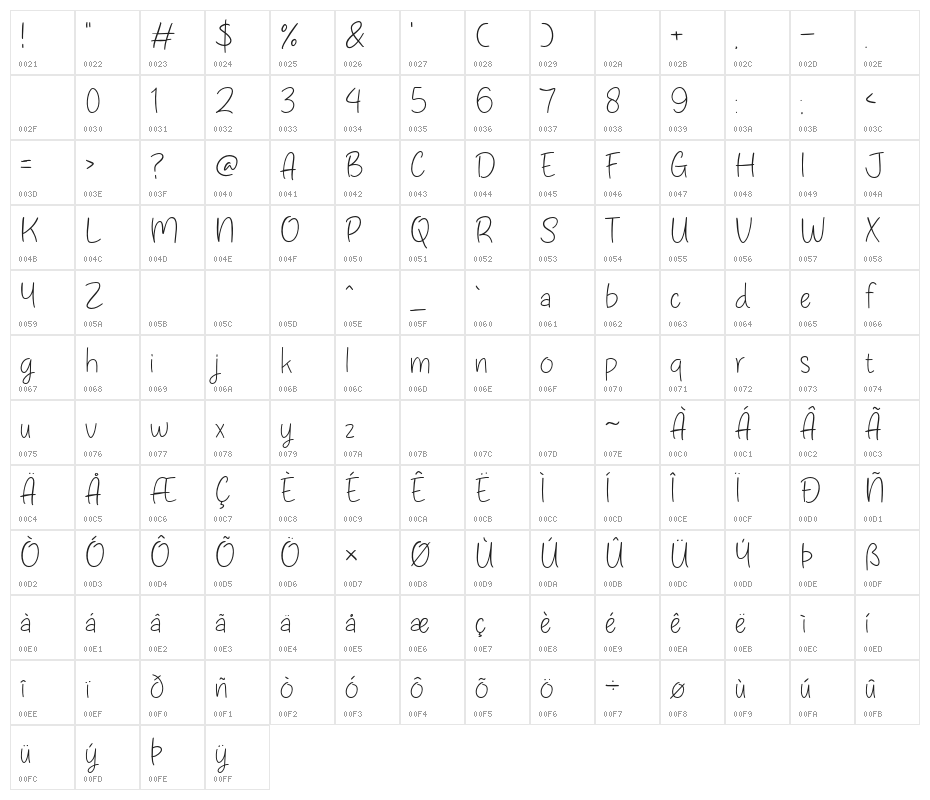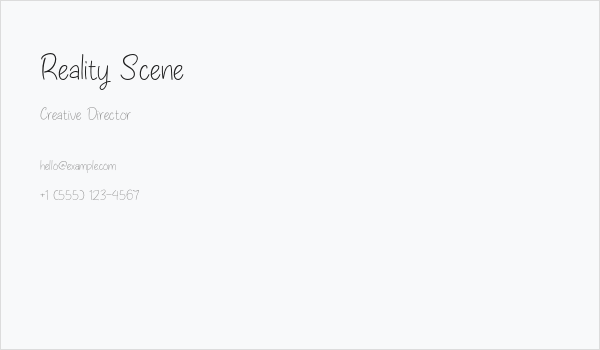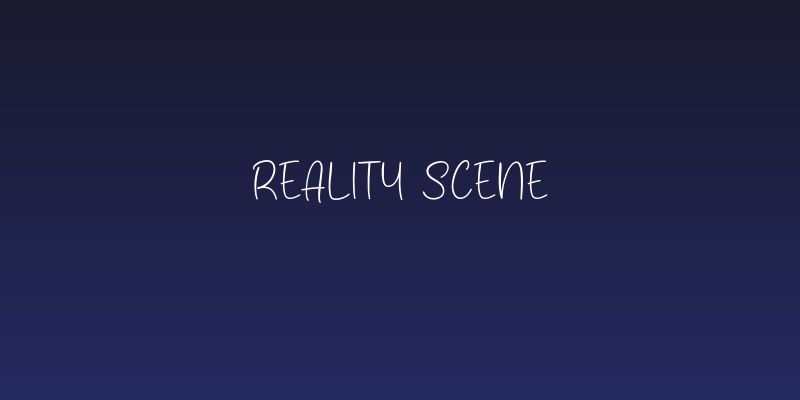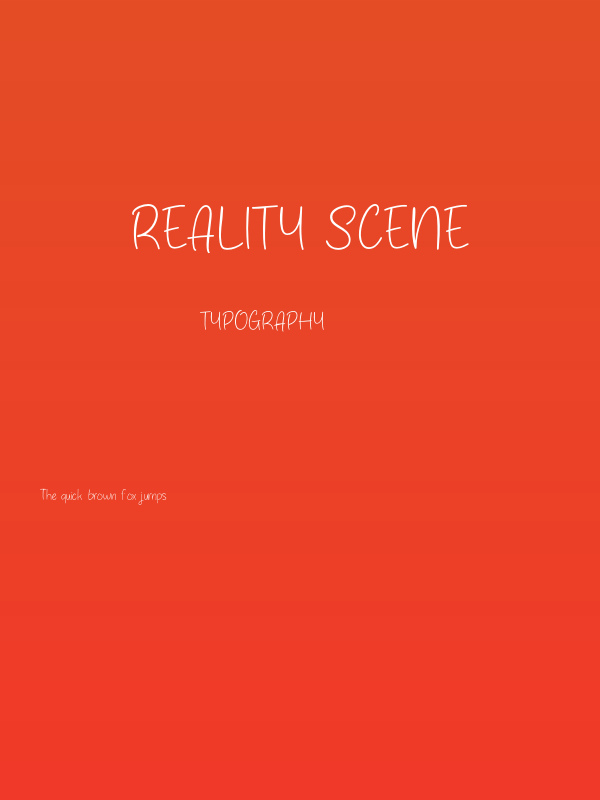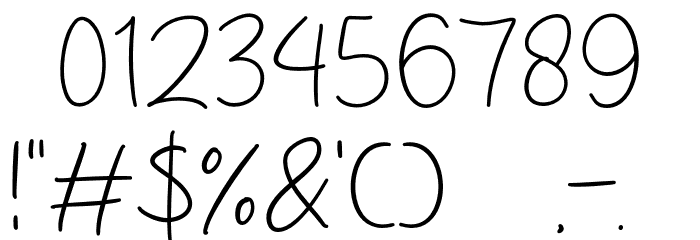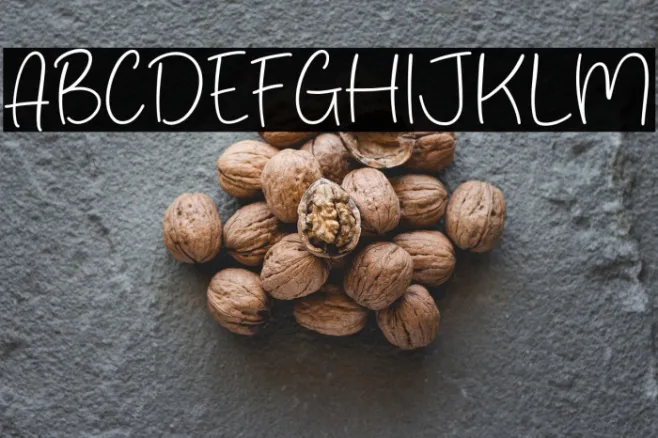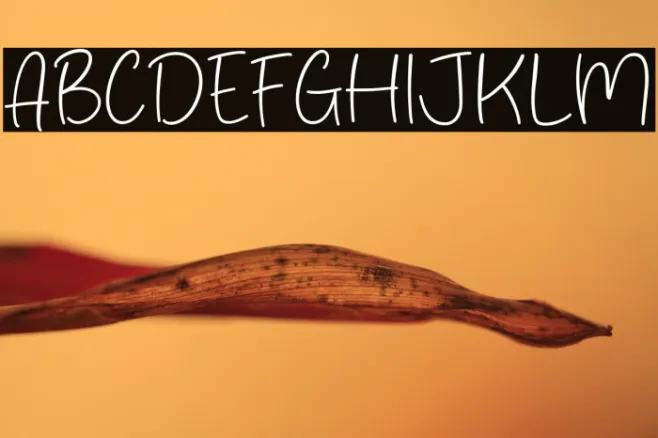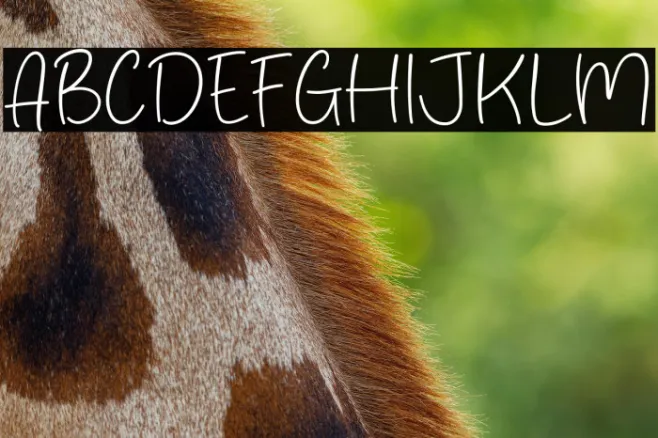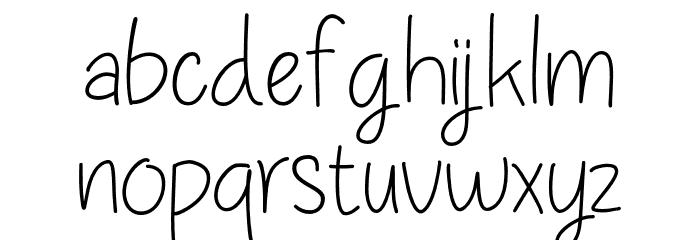
Reality Scene Font
Reality Scene Description
This font exhibits a playful and casual handwritten style, characterized by its smooth, flowing curves and slightly irregular strokes that mimic natural handwriting. The letters are well-spaced, providing a sense of openness and readability. The uppercase and lowercase characters maintain a consistent style, with rounded edges and a slight tilt that adds to its informal charm. The numerals and special characters are crafted to match the overall aesthetic, ensuring a cohesive look across all text elements. This font is ideal for projects that require a personal touch or a relaxed, friendly vibe.
| Overall Style | Casual |
| Use Case | Logos, Headlines, Informal text |
| Proposed Projects | Greeting cards, personal blogs, children's books, casual invitations, and social media graphics. |